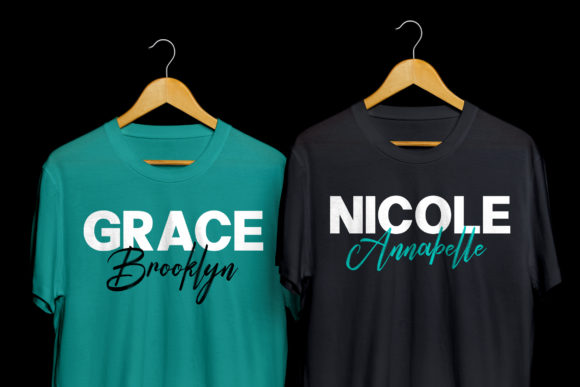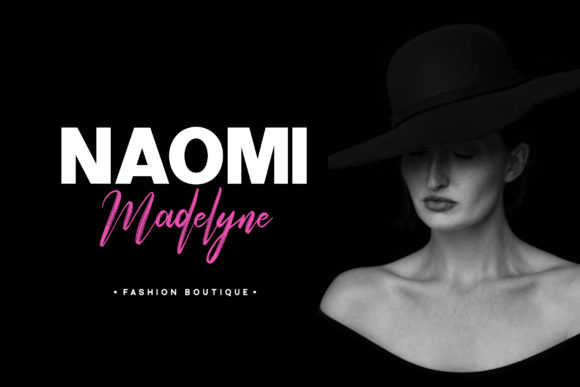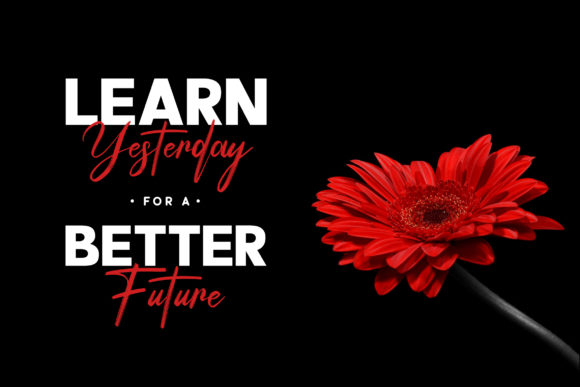
Introduction to Peter Quincy Font
Peter Quincy is a unique font duo with sans and hand-drawn script styles.
It is perfectly suited for a wide variety of projects .
Key Features of Peter Quincy Font
Why Choose Peter Quincy Font?
Peter Quincy Font offers exceptional quality and versatility, making it a valuable addition to your design toolkit. Whether you’re creating for personal projects or commercial use, Peter Quincy Font delivers professional results.